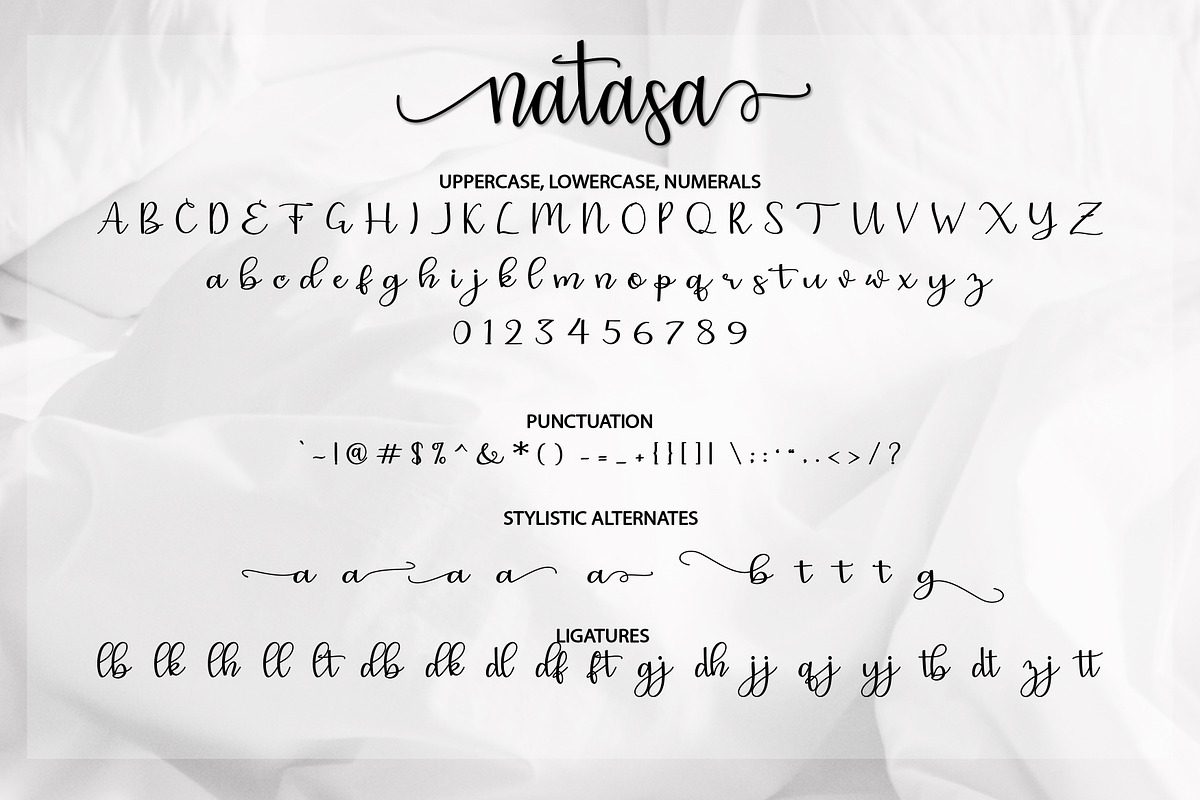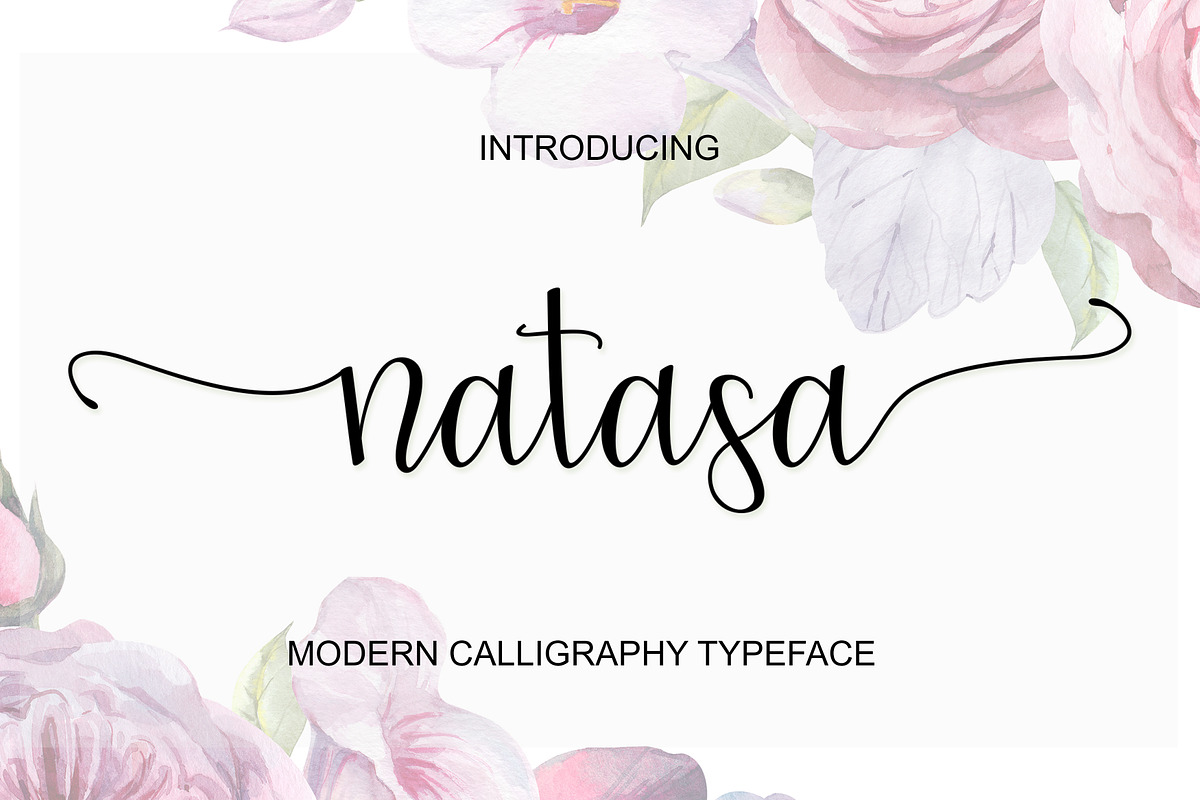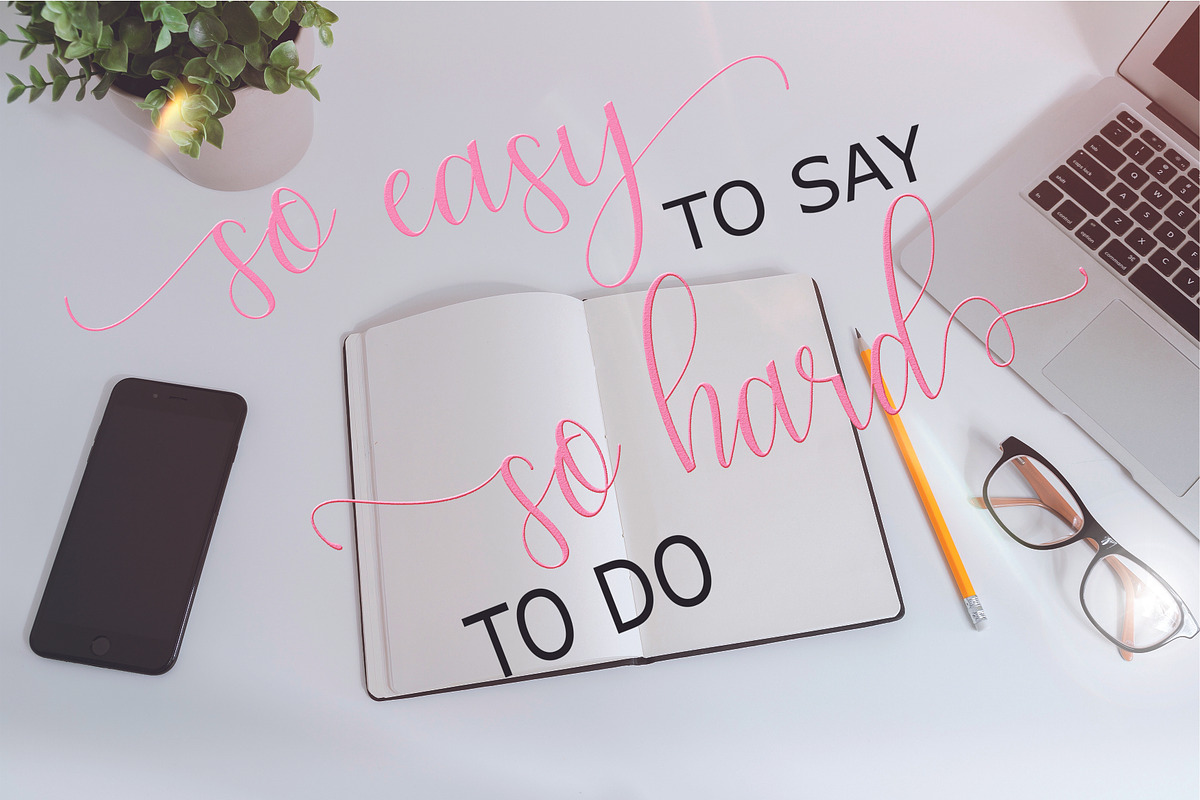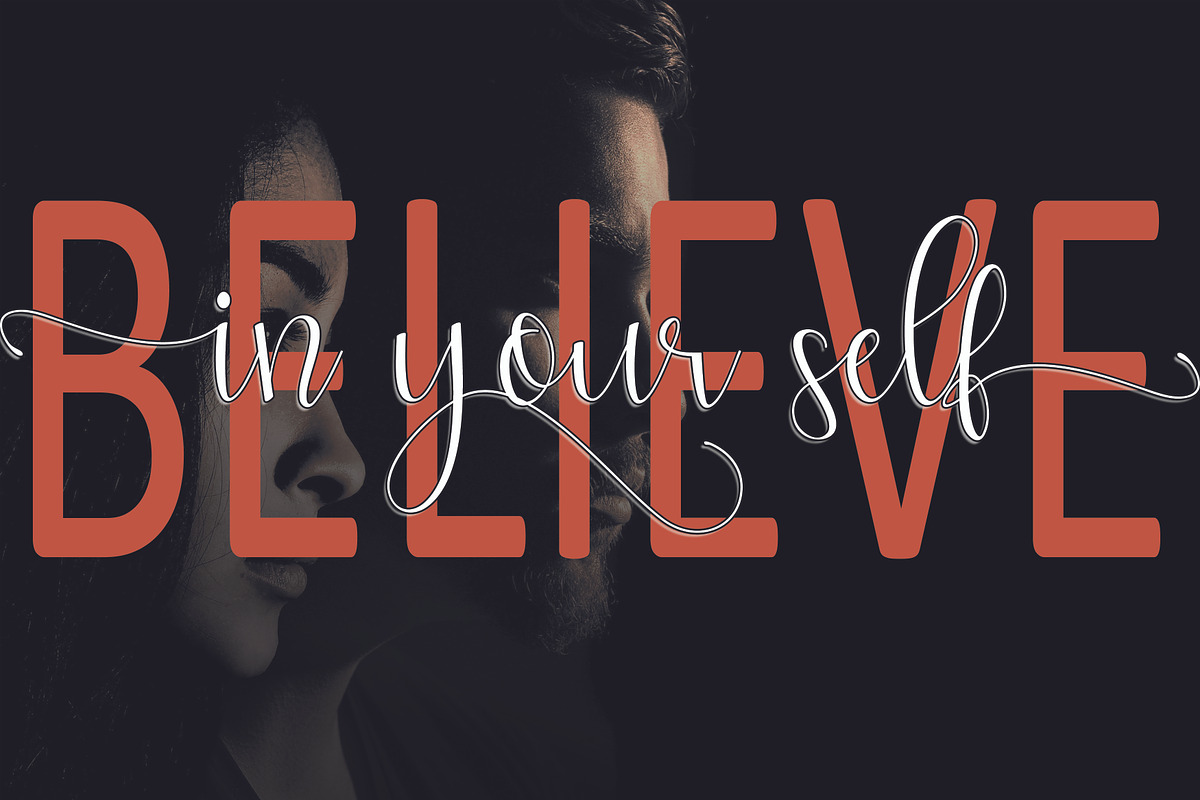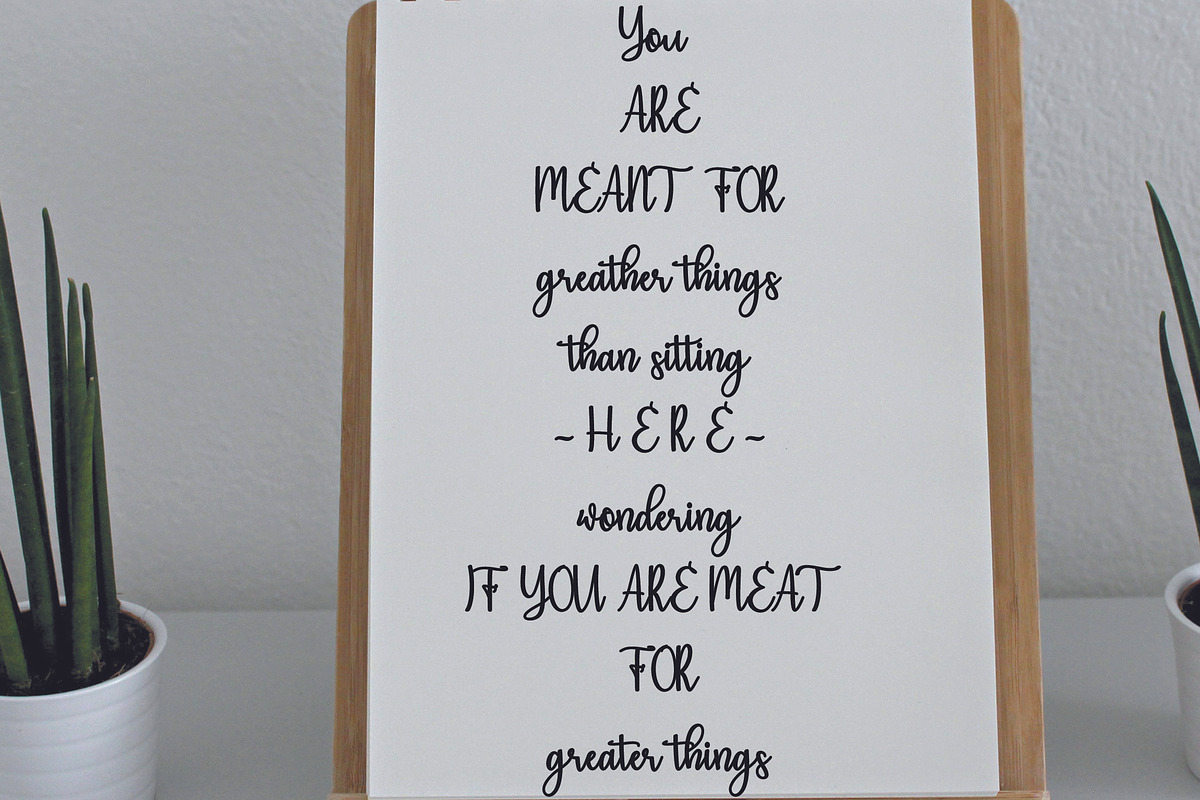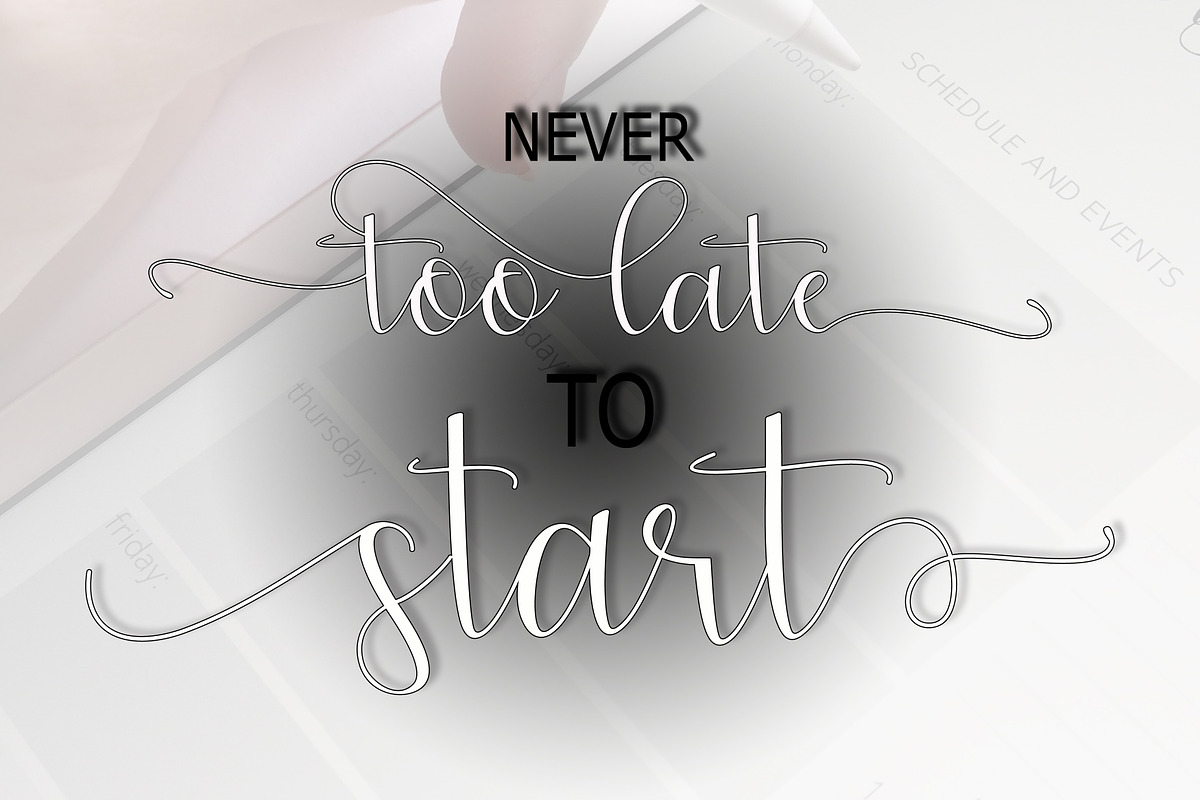
Natasa Script Font
Natasa Script a new fresh & modern script with a handmade calligraphy style, decorative characters and a dancing baseline! So beautiful on invitation like greeting cards, branding materials, business cards, quotes, posters, and more!!
Natasa Script come with 450+ glyphs. The alternative characters were divided into several Open Type features such as Swash, Stylistic Sets, Stylistic Alternates, Contextual Alternates. The Open Type features can be accessed by using Open Type savvy programs such as Adobe Illustrator, Adobe InDesign, Adobe Photoshop Corel Draw X version, And Microsoft Word. And this Font has given PUA unicode (specially coded fonts). so that all the alternate characters can easily be accessed in full by a craftsman or designer.
Why Natasa Script Font is worth a look
Natasa Script Font by Zulkhairi Lettering fits naturally into Branding, posters, packaging, typography.